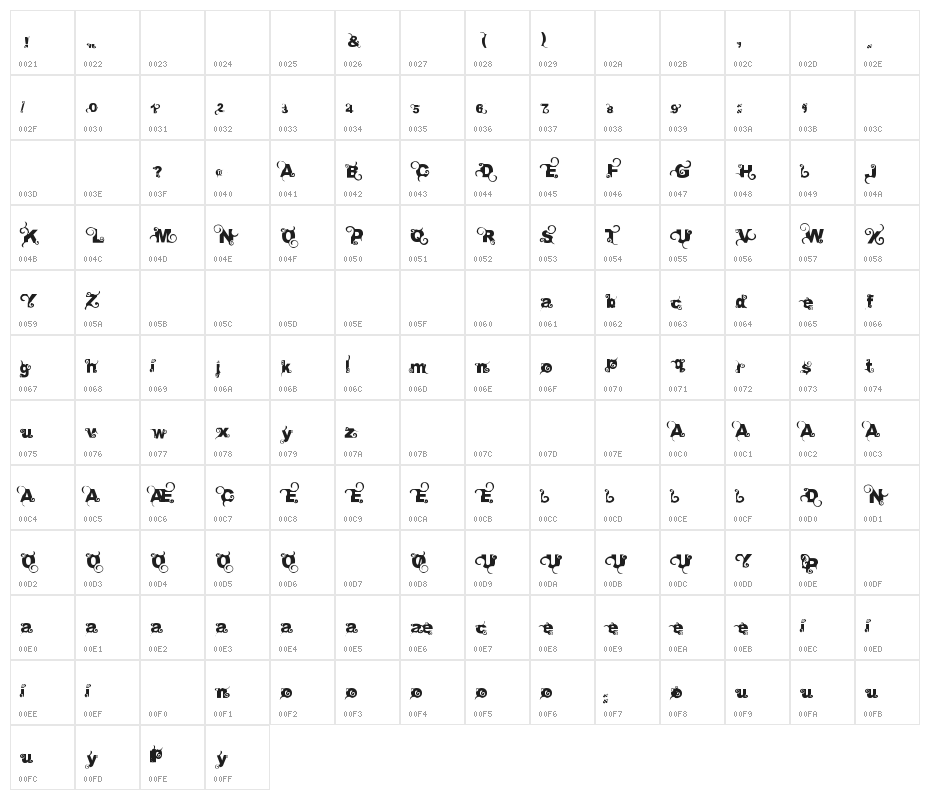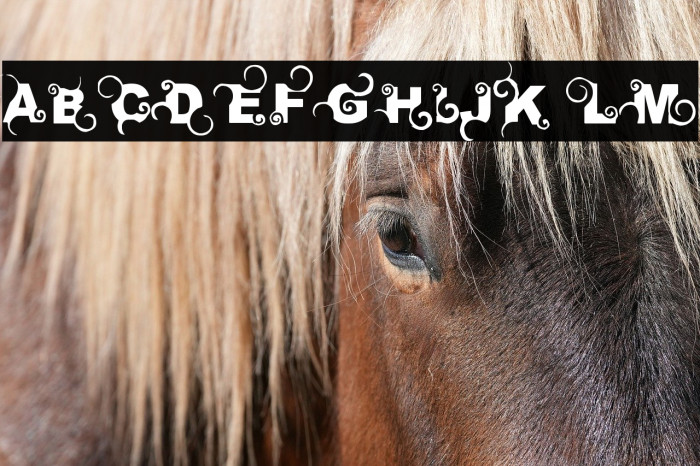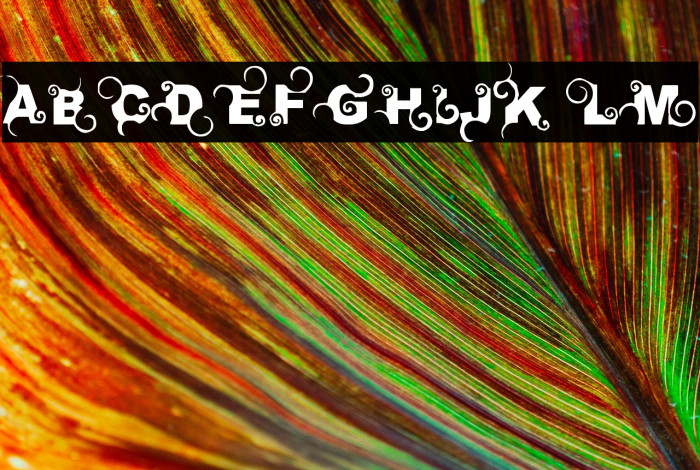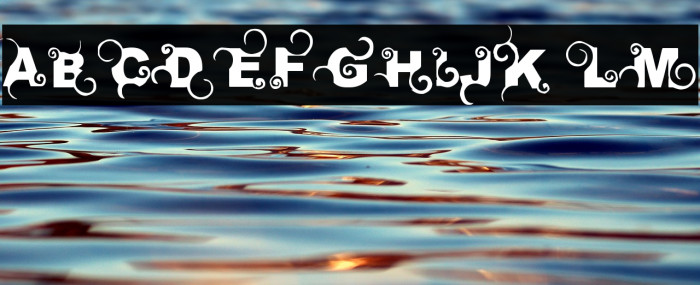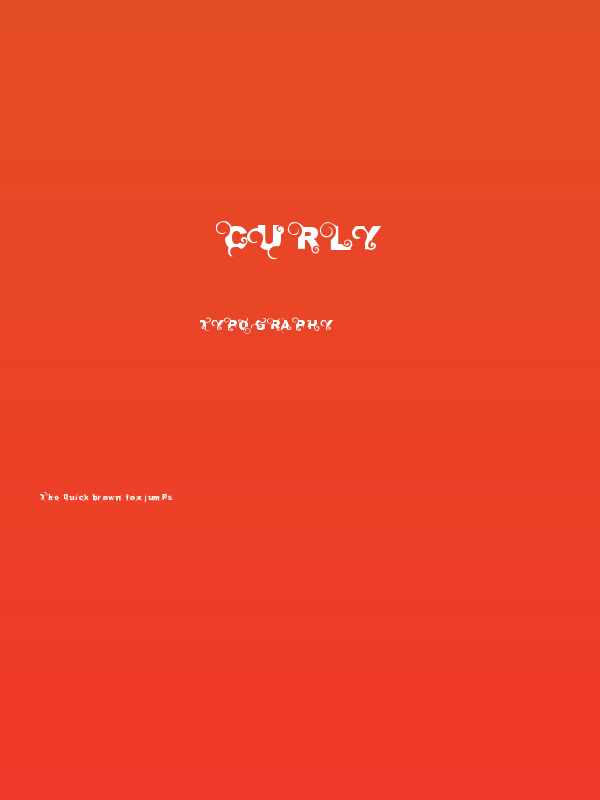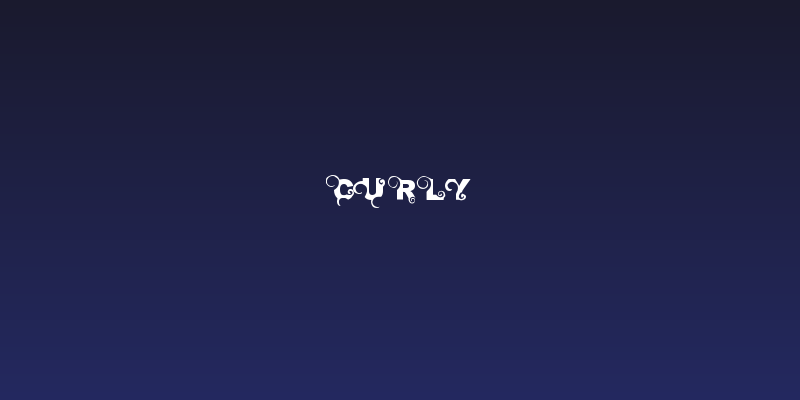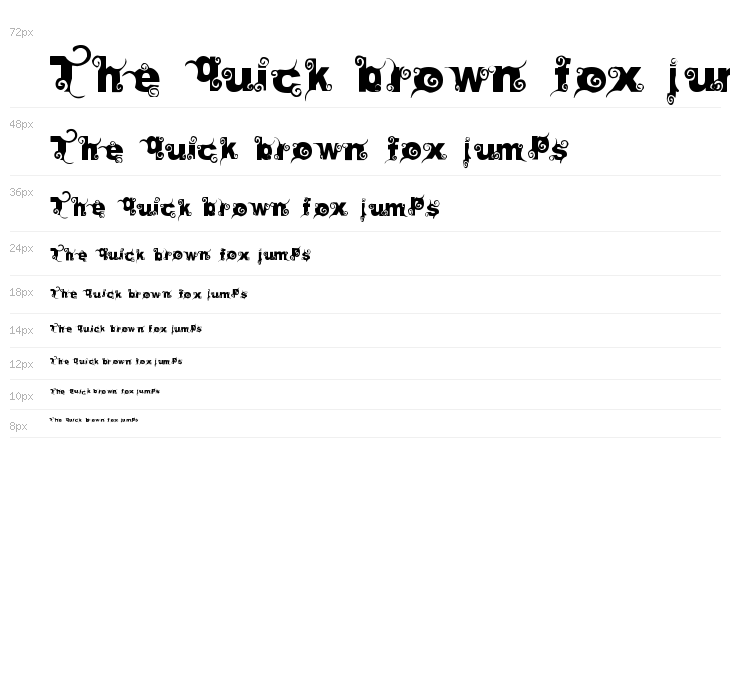
curly Font
curly Description
This font features an ornate and decorative style with elaborate curls and swirls extending from each character. The uppercase and lowercase letters are embellished with intricate loops, adding a whimsical and playful touch. The numbers and special characters maintain this decorative theme, making the font highly distinctive and eye-catching. Its bold strokes and unique design elements make it suitable for creative and artistic projects where a touch of elegance and flair is desired.
| Use Case | Headlines, Logos, Artistic projects |
| Proposed Projects | Ideal for invitations, greeting cards, posters, and branding materials where a whimsical and artistic touch is needed. |